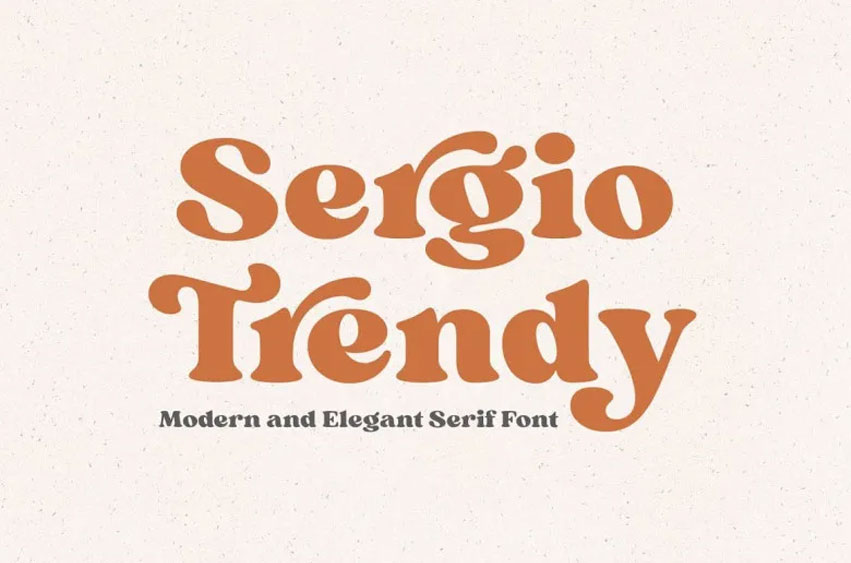
Sergio Trendy Font
Sergio Trendy Font is a vintage-style serif typeface with an elegant and modern aesthetic, created using characters spanning different font families. Perfect for branding, advertising packaging, logotypes, headlines, titles and editorial design projects alike.